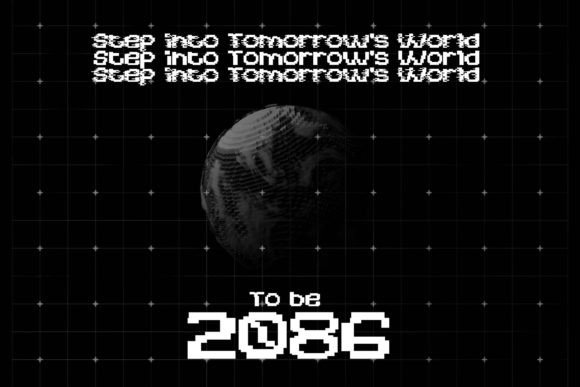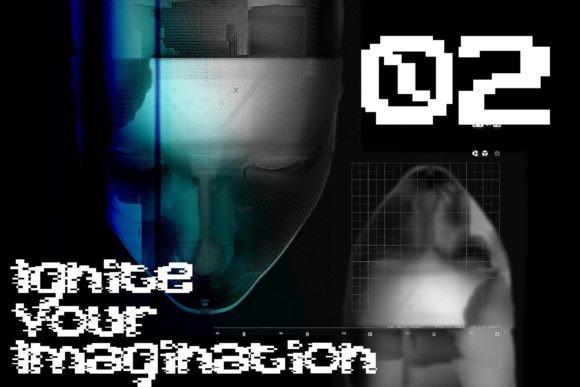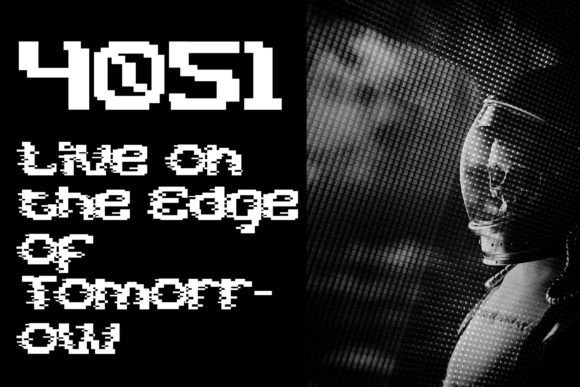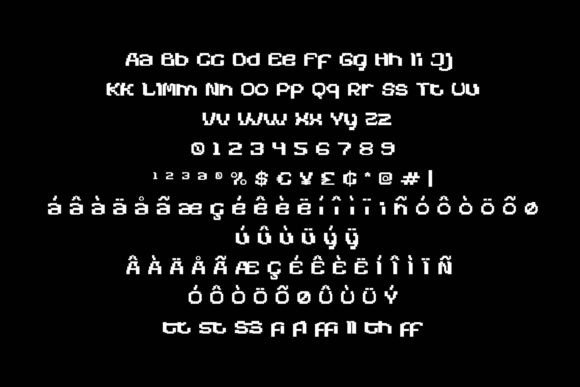
Introduction to Mespix Font
Mespix is an eye-catching display font, known for its distinctive pixel aesthetic.
It’s an excellent choice for brands seeking a unique identity, making a bold, digital statement across social media platforms and logos Not only does it carry the weight of branding effortlessly, but it also proves versatile for a variety of products, making Mespix the go-to font for those wanting to stand out in the crowd.
Key Features of Mespix Font
Why Choose Mespix Font?
Mespix Font offers exceptional quality and versatility, making it a valuable addition to your design toolkit. Whether you’re creating for personal projects or commercial use, Mespix Font delivers professional results.